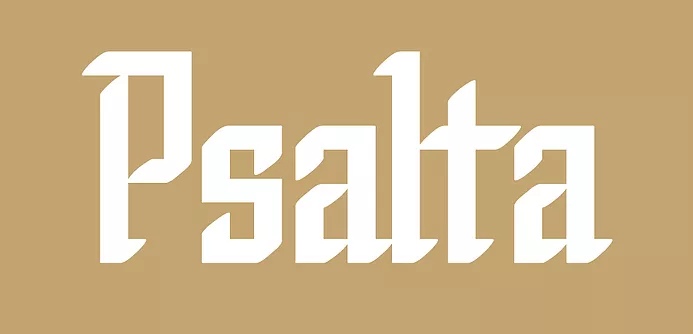
Psalta Font
Psalta Font is ideal for spiritual branding projects, religious publications, sacred text layouts, church communications, meditation center graphics, wellness branding, inspirational poster designs, and contemplative editorial applications.
This exciting Psalta Font inspires reverence with its graceful letterforms and serene character that embodies tranquility, wisdom, and spiritual depth. The font's peaceful aesthetic and contemplative qualities make it an exceptional choice for projects requiring spiritual connection, mindfulness, and sacred communication that resonates with audiences seeking meaning and inner peace.
The Psalta Font family encompasses various meditative styles including Regular, Light, Medium, Bold, Italic, and Ornamental versions, providing designers with comprehensive options for creating harmonious and spiritually uplifting typographic compositions that honor sacred traditions.
The contemplative character of Psalta Font makes it particularly valuable for religious organizations, spiritual centers, wellness brands, meditation teachers, and philosophical institutions that need to convey peace, wisdom, and sacred purpose. Its calming presence appeals to individuals seeking spiritual growth and meaningful connections.
Typography specialists choose Psalta Font for its authentic spiritual resonance and exceptional readability in extended text applications. The font maintains its sacred character across various formats, from intimate prayer books to large sanctuary displays, ensuring consistent spiritual atmosphere and reverent communication.
The versatile nature of Psalta Font allows for seamless integration into comprehensive spiritual brand systems and multi-platform communications. Its balanced proportions and peaceful styling work effectively for everything from personal devotional materials to institutional publications and digital platforms.
Spiritual organizations utilize Psalta Font to create authentic identities that communicate reverence, tradition, and sacred purpose in contemporary contexts. The typeface's contemplative elegance helps establish spiritual credibility while appealing to seekers who value authenticity, wisdom, and meaningful spiritual expression in their faith journey.